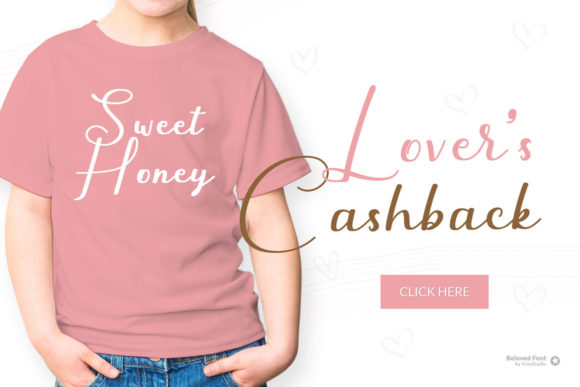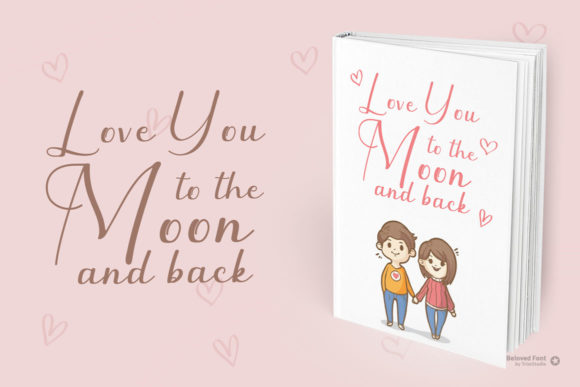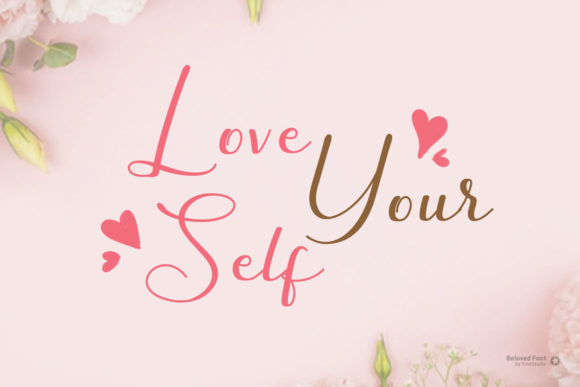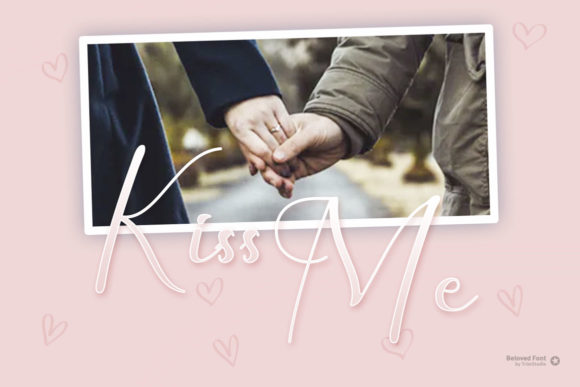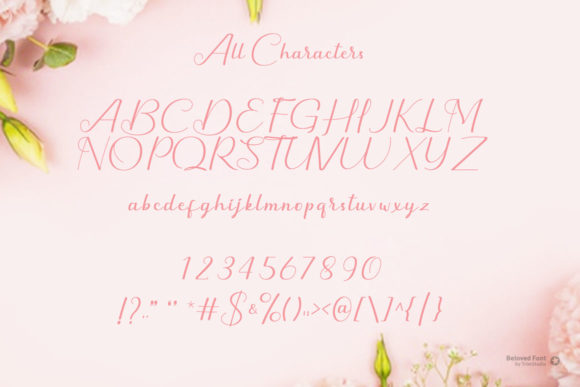
HomeScript FontsBeloved Font Script Fonts Beloved Font FacebookXPinterestWhatsApp Beloved Font Poster 2 Beloved Font Poster 3 Beloved Font Poster 4 Beloved Font Poster 5 Beloved Font Poster 6 About Beloved Font Beloved is a friendly and cute font. Fall in love with its playful look and feel. DOWNLOAD ON CREATIVE FABRICAThis font is sold and delivered by Creative Fabrica. Font Canyon may earn a commission if you buy through this link. People also explored Jakarta Backers Font Joystix Starfruit Celestial Duo Font Sunshine Font Bahari Font Hollyday Brother Font Sunshine Font Curly Font Cherry Cordial Font 294 0 TagsBeloved Font Previous articleShafira FontNext articleGrimalkin Font LEAVE A REPLY Cancel reply Comment: Please enter your comment! Name:* Please enter your name here Email:* You have entered an incorrect email address! Please enter your email address here Website: Save my name, email, and website in this browser for the next time I comment. Personal Use Free Simple Personal Use Free Read more about this font Colombia Personal Use Free Read more about this font Crellia Script Personal Use Free Read more about this font The Kingdom Personal Use Free Read more about this font BLOG How to Cut Any Font on Cricut: Convert a Font to SVG (Free) Turn any font into a clean SVG so it cuts crisp on Cricut - a quick 3-step workflow using a free font-to-SVG tool. Free vs Paid Fonts: Why Investing in Premium Fonts Is Worth It How to Install and Use Fonts on Windows, macOS, and Web Projects Free Fonts Risk: Why Free Fonts Can Be Dangerous for Designers